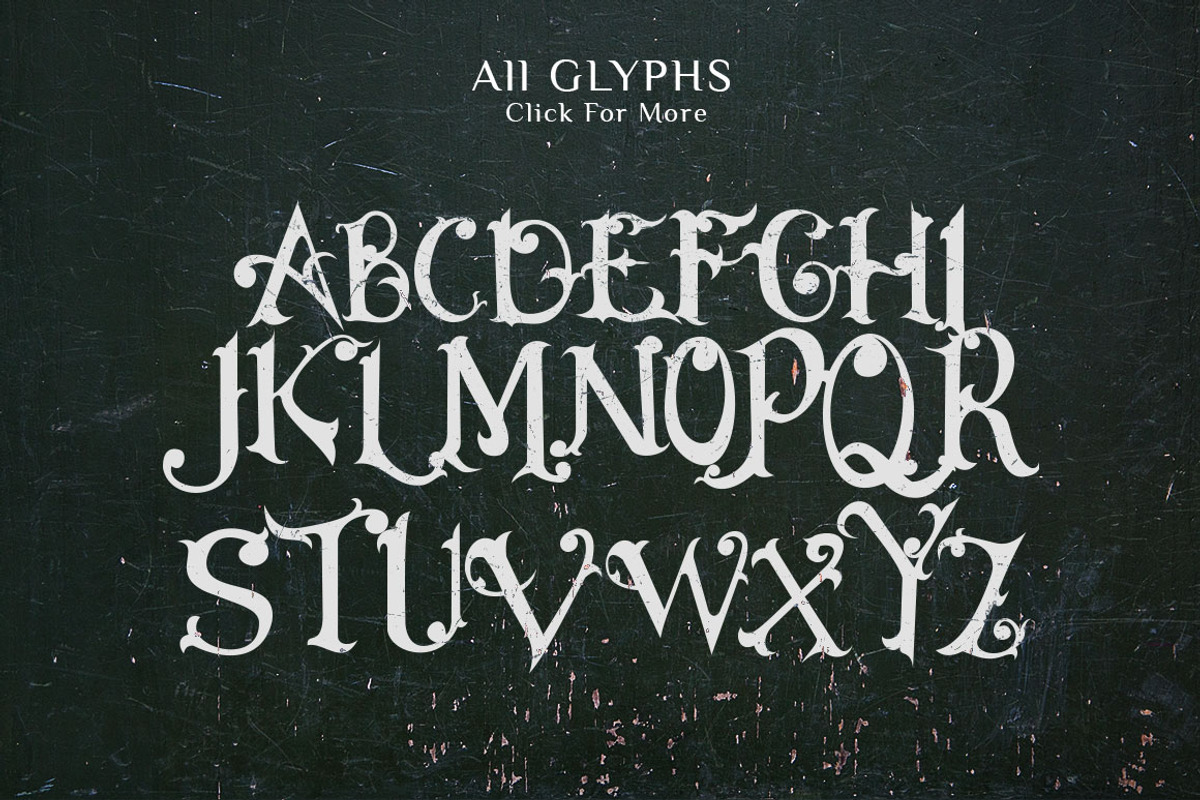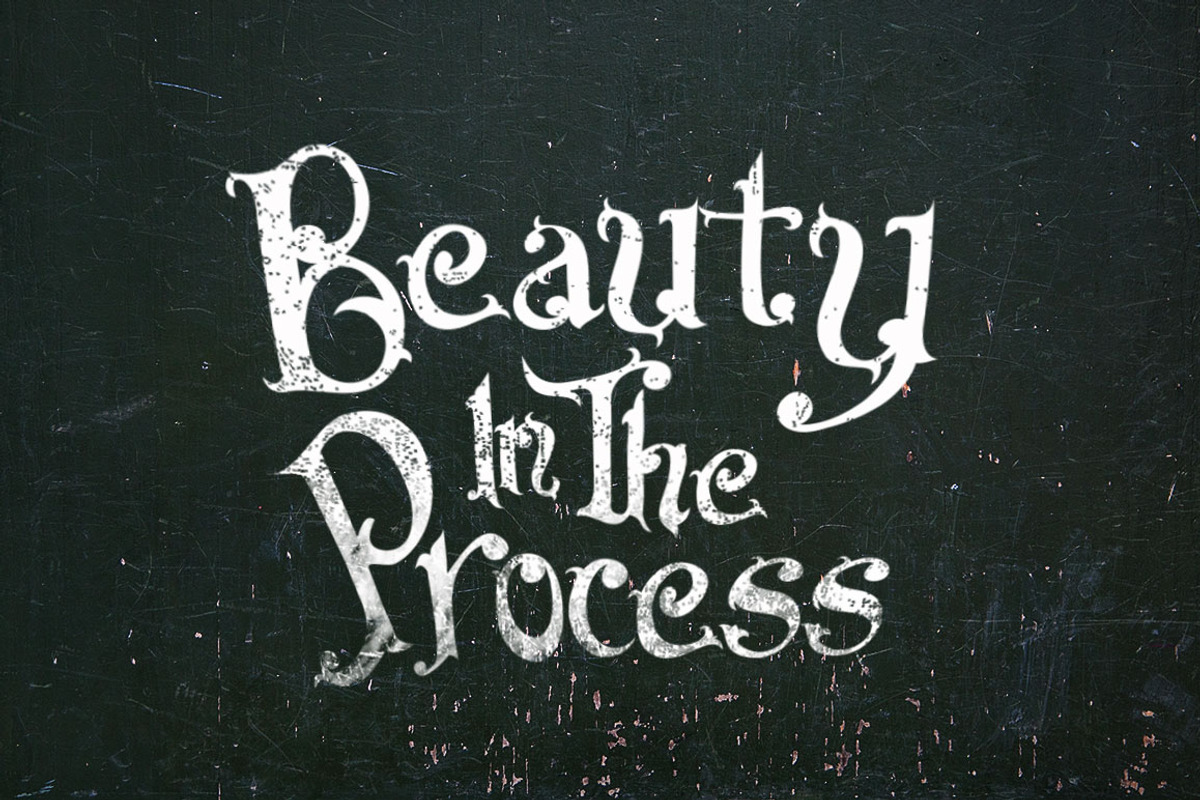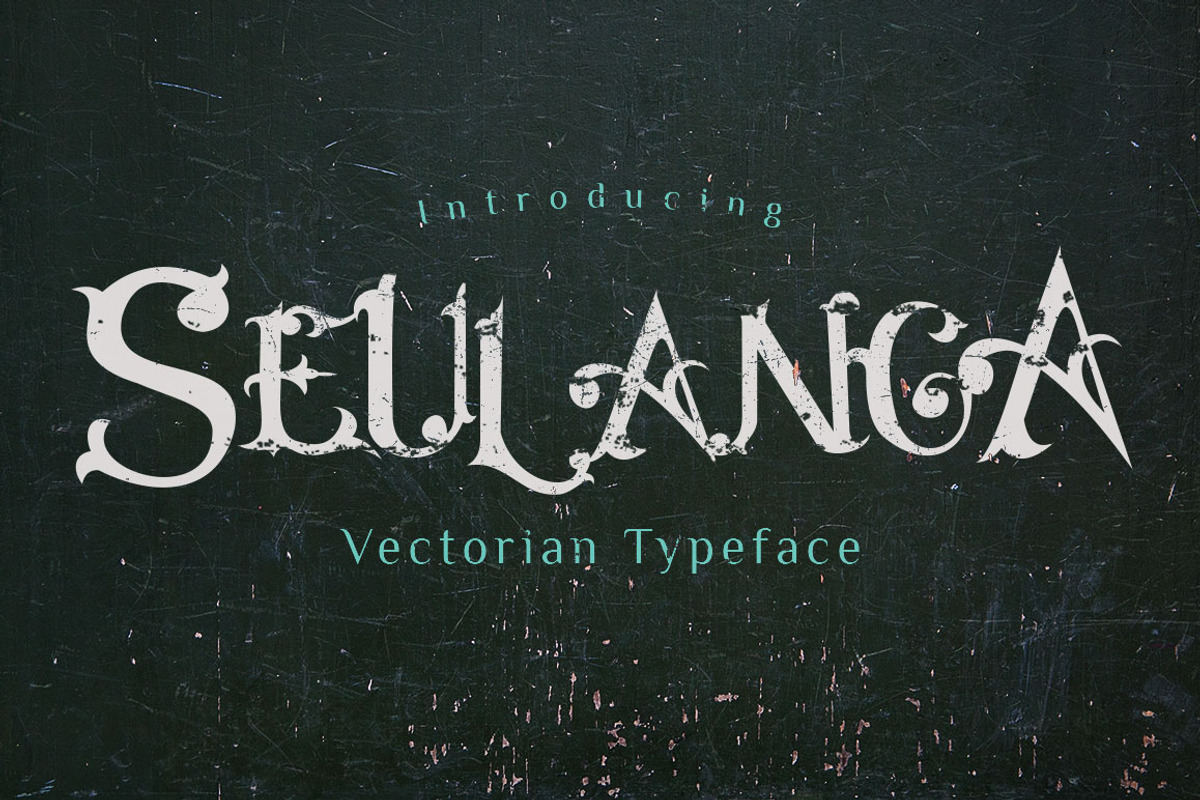
Seulanga Typeface
Seulanga Typeface by Dirtyline Studio is a font selected for branding, posters, packaging, typography.
Why Seulanga Typeface is worth a look
Seulanga Typeface by Dirtyline Studio fits naturally into Branding, posters, packaging, typography.